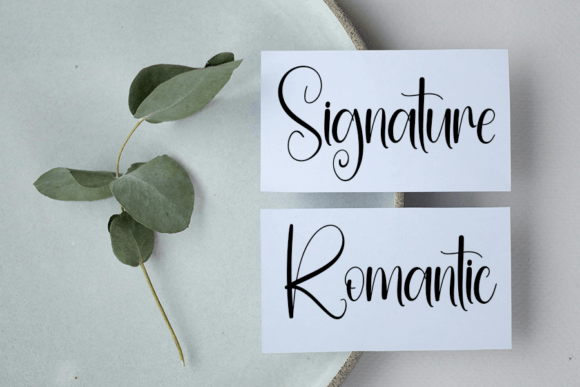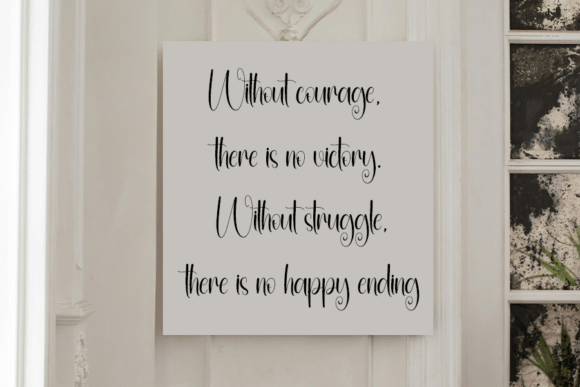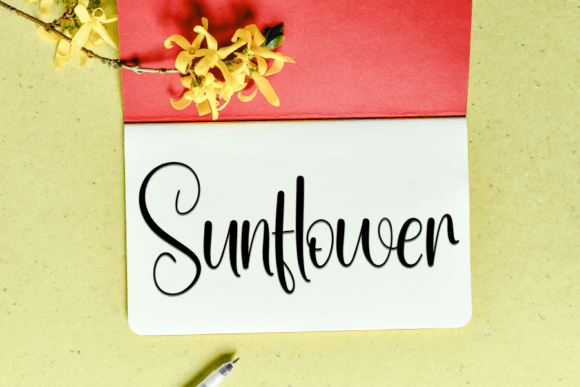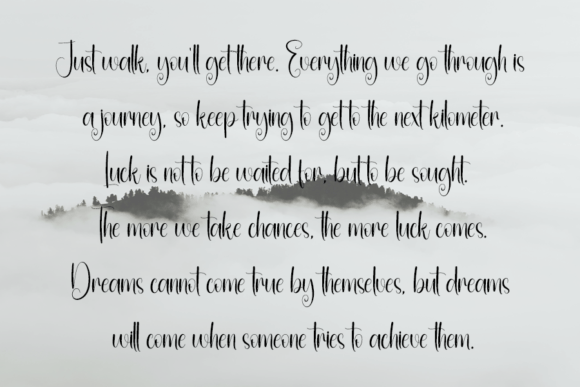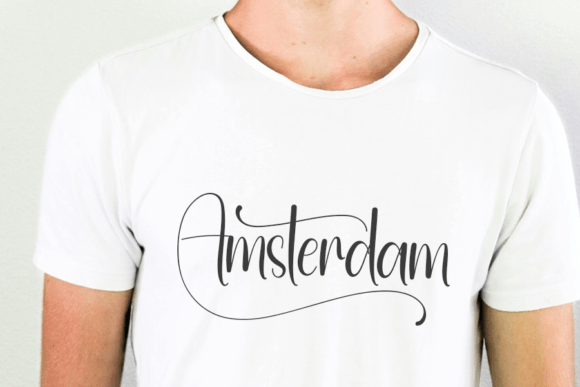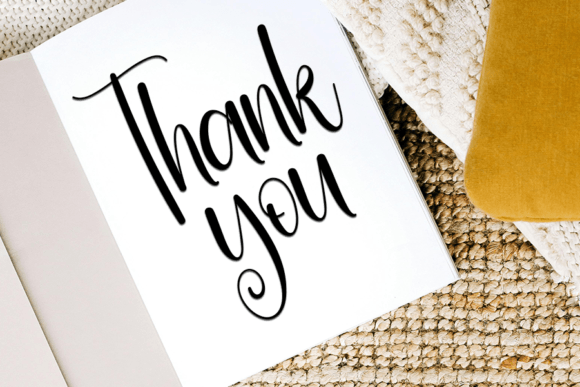
Introducing Amsterdam Font: Elevate Your Designs with a Delicate Handwritten Touch
In the world of typography, a font can make or break a design. For designers and crafters looking to add a touch of elegance and uniqueness to their projects, the Amsterdam Font is an excellent choice. This delicate handwritten font is carefully crafted to provide a cool and distinctive look that’s perfect for a variety of applications.
What is Amsterdam Font?
Amsterdam Font is a beautiful, hand-crafted typeface designed to bring a personal touch to your designs. Its delicate strokes and unique character make it an ideal choice for anyone looking to add a bit of sophistication and whimsy to their work. Whether you’re creating invitations, writing letters, designing food product labels, or crafting titles, Amsterdam Font is the perfect companion.
Key Features of Amsterdam Font
- Delicate Handwritten Style: The Amsterdam Font boasts a delicate, handwritten look that’s both elegant and eye-catching.
- Versatility: This font is incredibly versatile and can be used for a wide range of projects, from personal letters and invitations to professional titles and food product labels.
- Unique Character: Each letter in the Amsterdam Font is carefully crafted to ensure that your designs stand out from the crowd.
- Easy to Read: Despite its delicate nature, the Amsterdam Font remains clear and easy to read, making it perfect for both digital and print designs.
Use Cases for Amsterdam Font
The possibilities are endless with the Amsterdam Font. Here are a few ideas to get you started:
- Invitations: Add a touch of elegance to your wedding invitations, birthday party invites, or any other special occasion.
- Food Product Labels: Give your homemade food products a professional and charming look with custom labels featuring the Amsterdam Font.
- Stationery: Create beautiful, one-of-a-kind stationery sets that are perfect for writing letters or jotting down notes.
- Titles and Headings: Use the Amsterdam Font to add a unique and stylish touch to your blog posts, articles, or social media graphics.
Why Choose Amsterdam Font?
In a sea of generic fonts, the Amsterdam Font stands out for its unique character and delicate beauty. Here are a few reasons why designers and crafters are falling in love with this font:
- Personal Touch: The handwritten nature of the Amsterdam Font adds a personal touch to your designs, making them more relatable and engaging.
- Customization: With the Amsterdam Font, you can easily create custom designs that reflect your personal style or brand identity.
- Professional Look: Despite its handmade look, the Amsterdam Font exudes a level of sophistication and professionalism that’s perfect for high-end designs.
The Amsterdam Font is a beautiful, delicate handwritten font that’s perfect for designers and crafters looking to add a unique touch to their projects. With its versatility, unique character, and ease of use, it’s an excellent choice for a wide range of applications. Whether you’re creating invitations, food product labels, or simply want to add a touch of elegance to your stationery, the Amsterdam Font is sure to impress.